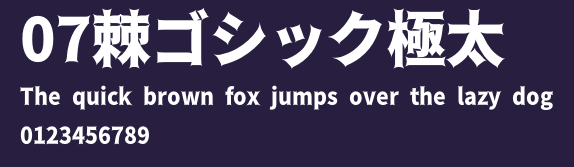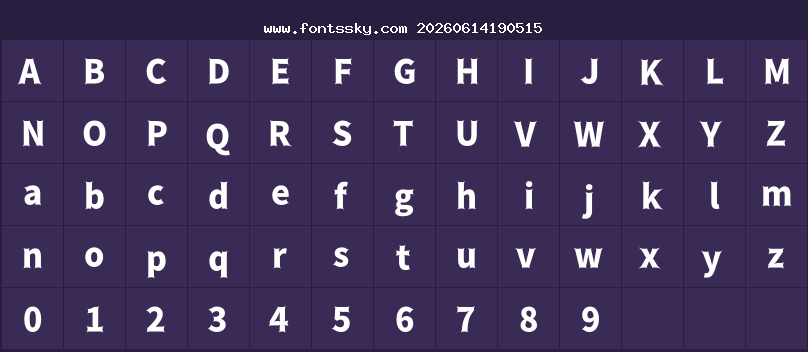
07棘ゴシック極太 Preview
• Font Name: 07棘ゴシック極太
• Font ID: 07棘ゴシック極太
• Full Font Name: 07棘ゴシック極太
• PostScript Name: 07TogeGothic-Heavy
About 07棘ゴシック極太.otf
07棘ゴシック極太.otf is a modern, elegant sans-serif font designed for ultimate readability and visual harmony. Perfect for branding, headlines, web design, and print materials.